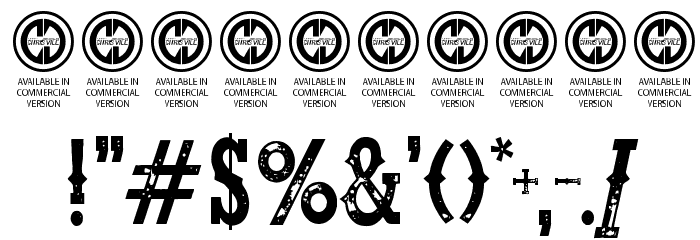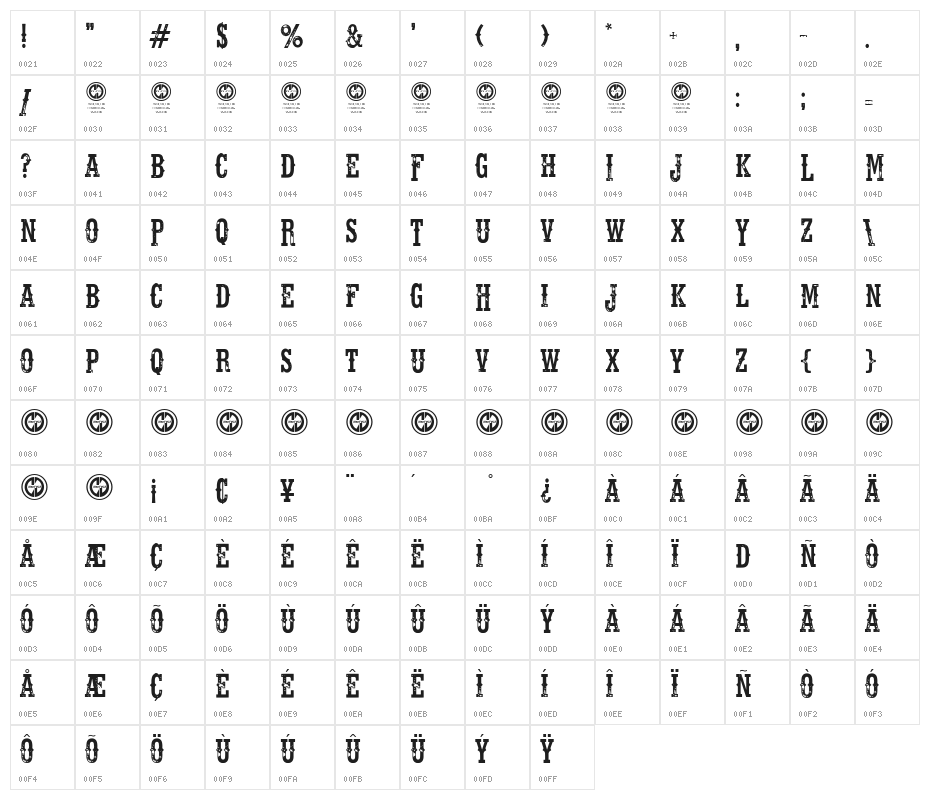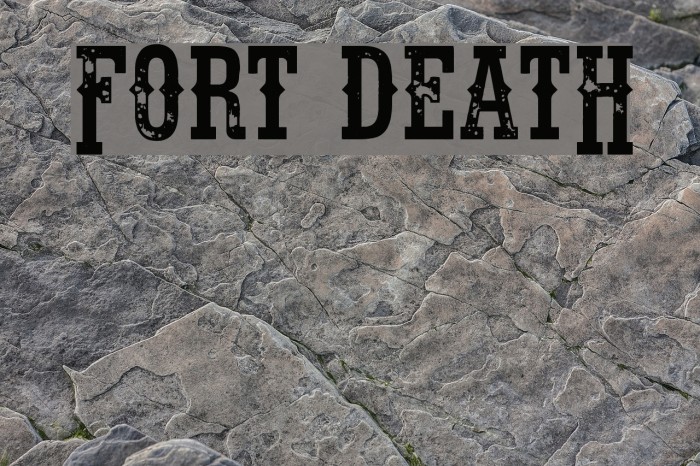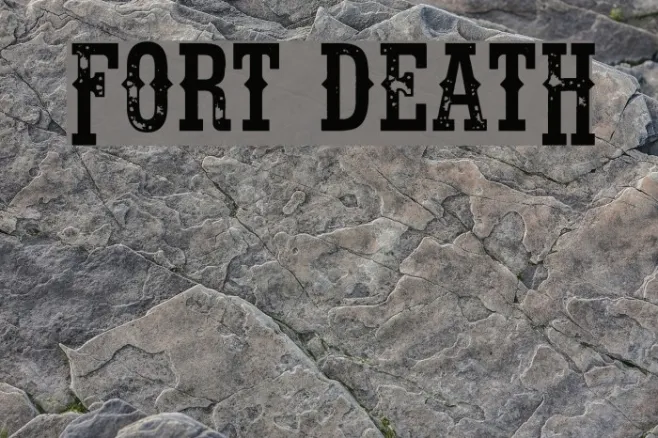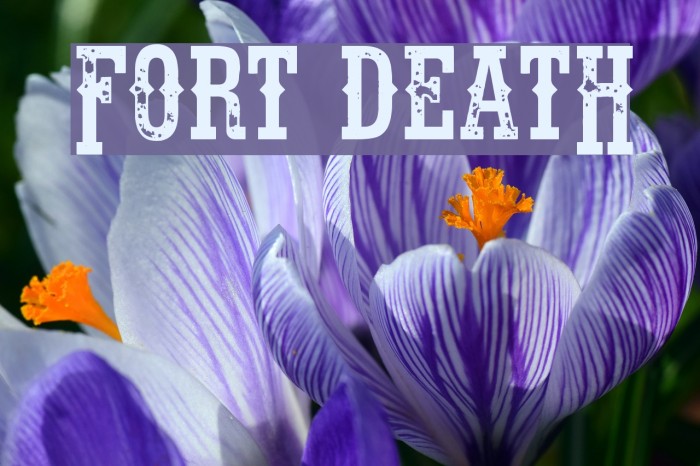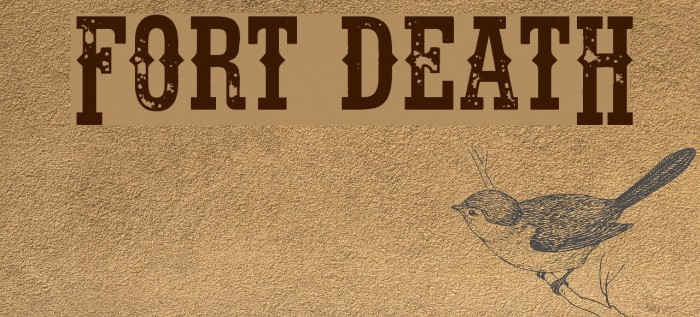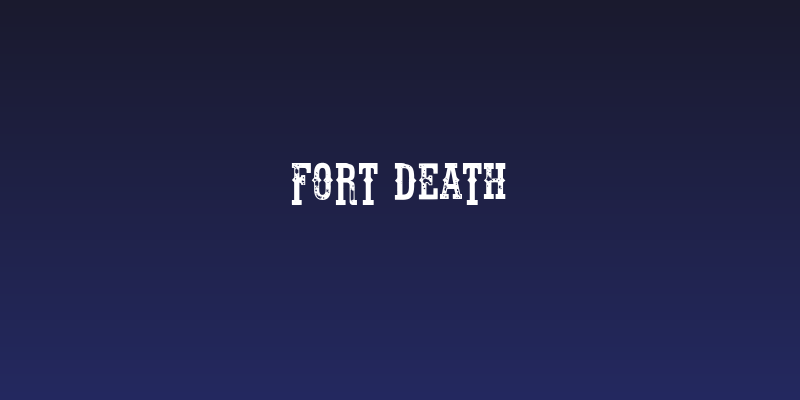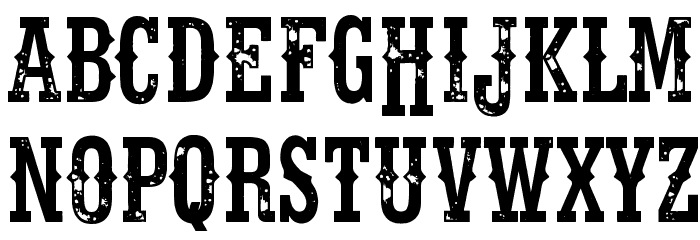
Fort Death Font
Fort Death Description
This font features a bold and rugged design, characterized by its distressed and weathered appearance. The letters are bold with a slab serif style, giving them a strong and impactful presence. The texture within each character mimics a worn or eroded look, adding a sense of vintage or industrial appeal. This unique style is consistent across both uppercase and lowercase letters, as well as numbers and special characters. The font's boldness and distinctive texture make it ideal for projects that require a strong visual impact.
| Proposed Projects | Ideal for posters, logos, branding, and any design project that requires a bold, vintage, or industrial look. |